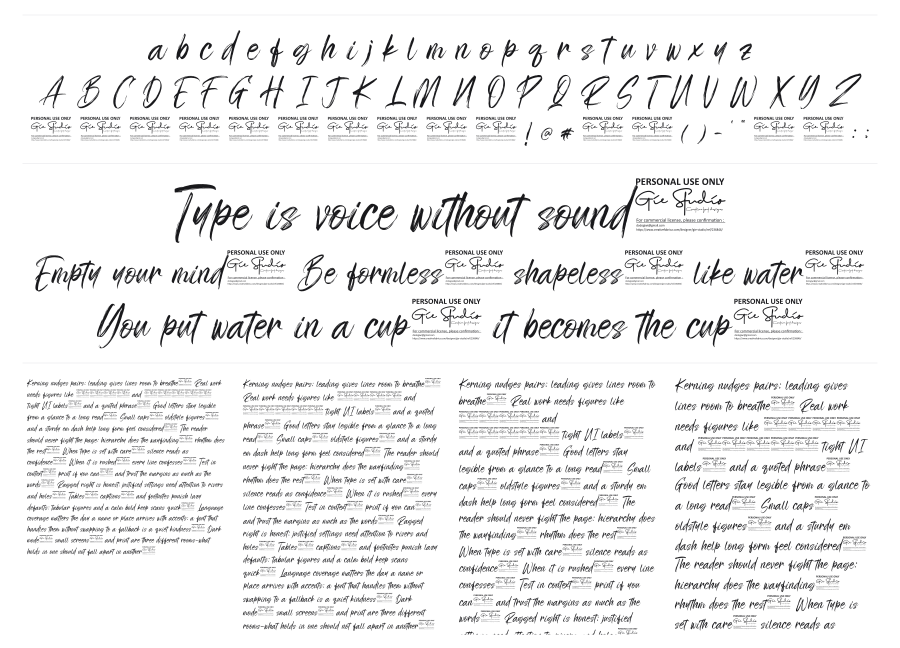
Real Dreams
Real Dreams is a high-energy casual brush script with bristle texture and dramatic stroke contrast. The letters lean forward with loose, gestural connections and undulating baselines that feel like quick, confident brushwork. Great for logos, packaging, or any headline that needs a handcrafted, expressive quality.